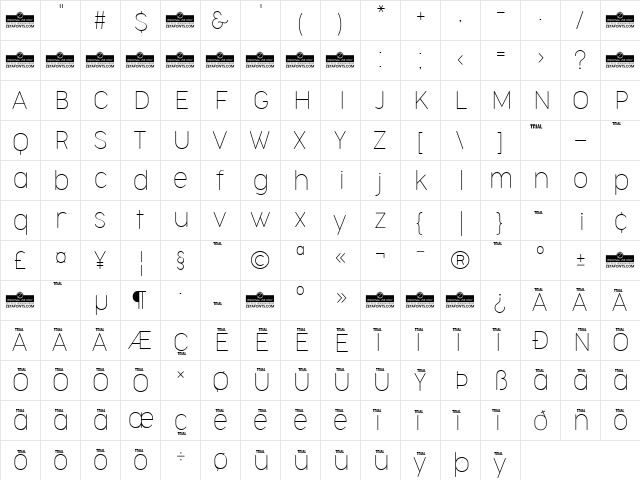
Cocogoose Narrow Trial Thin
Design Context for Cocogoose Narrow Trial Typeface
Cocogoose Narrow Trial is a composed and adaptable typeface that performs quietly and consistently across a wide range of design contexts. Its slender proportions lend an understated elegance to any composition. The condensed width makes it efficient for tight spaces without sacrificing legibility.